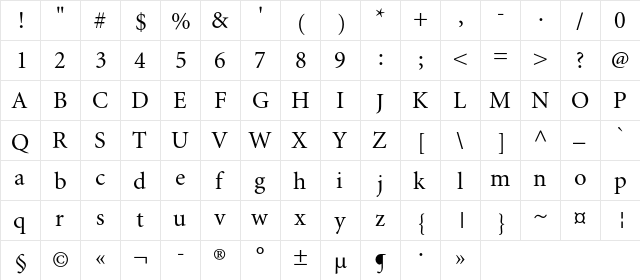
MiniatureC Regular
Design Context for MiniatureC Typeface
MiniatureC offers clean, dependable letterforms without strong stylistic allegiance, making it a practical choice for designers who need flexibility.